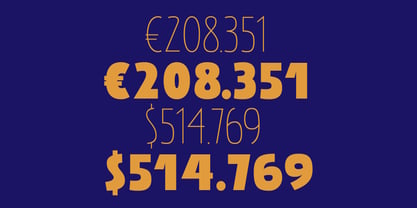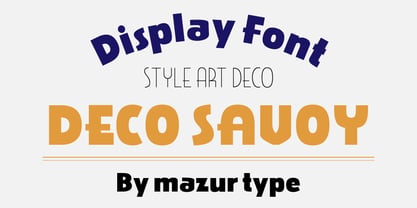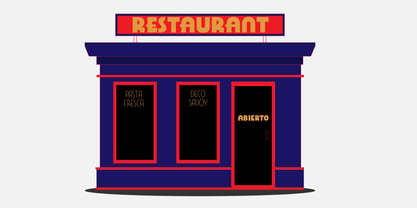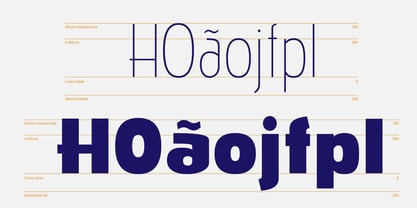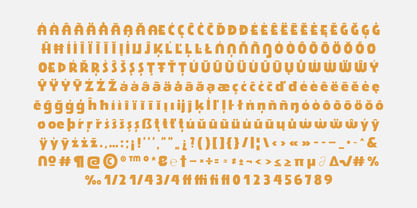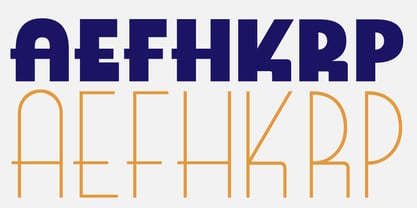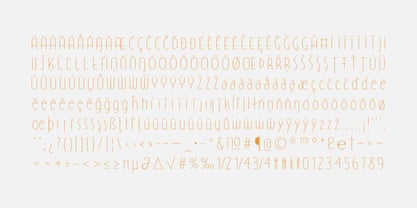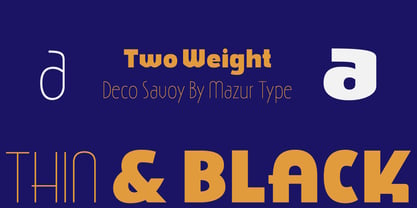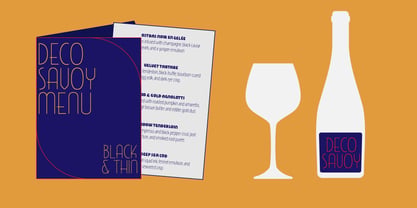
Deco Savoy
by Mazur Type
The Deco Savoy Font Family was designed by Angel Manuel Mazur and published by Mazur Type. Deco Savoy contains 1 styles. More about this family
Deco Savoy is a display typeface inspired by the refined atmosphere of the Art Deco era and the places where design became part of the experience—grand hotels, elegant restaurants, theaters, and iconic social spaces.
Built from bold geometric forms and carefully crafted details, Deco Savoy doesn't aim to recreate the past. Instead, it captures its timeless sense of sophistication through a contemporary interpretation.
Designed for headlines and display use, it brings confidence, character, and elegance to branding, packaging, editorial design, posters, signage, hospitality, and luxury-inspired visual identities.
Whether used for a boutique hotel, a premium restaurant, a spirits label, or a cultural publication, Deco Savoy creates a distinctive typographic presence that feels both classic and modern.